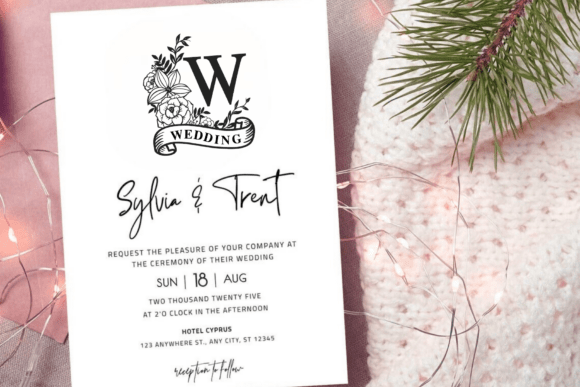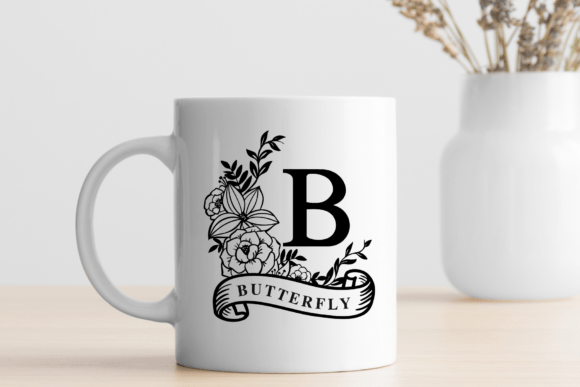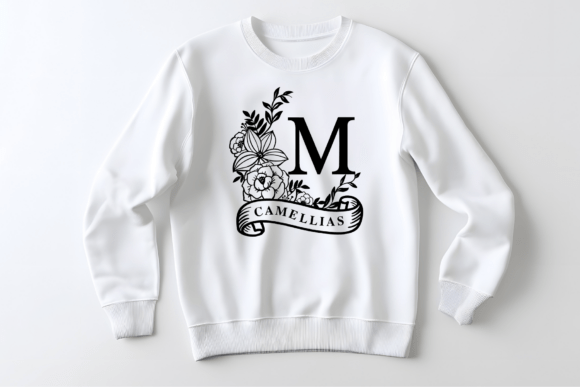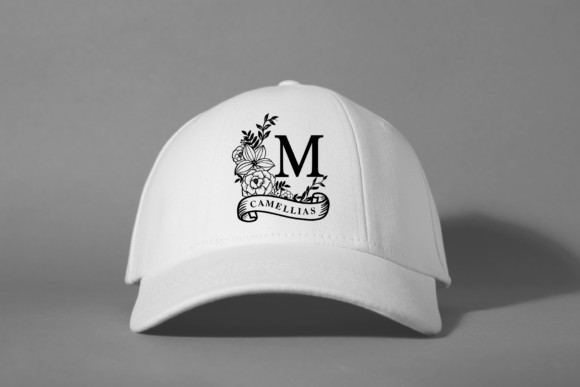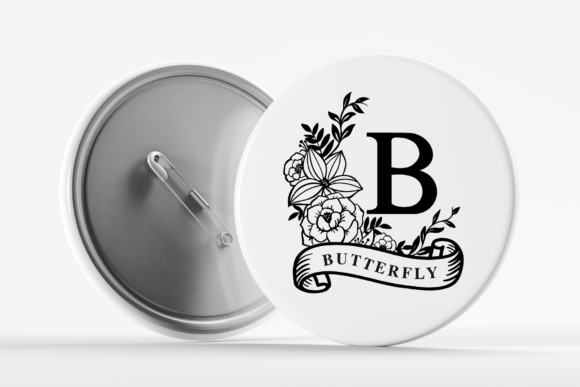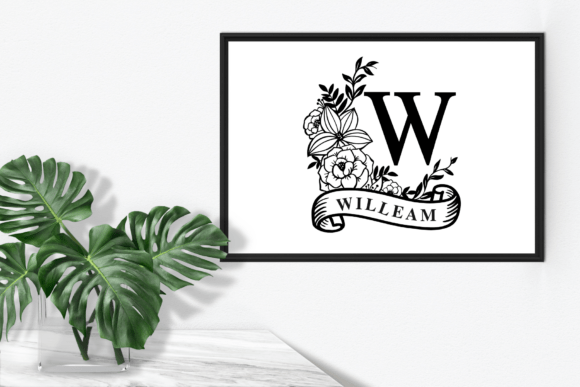
Unleashing the Beauty of Camellias Monogram Font
Have you ever stared at a blank page, waiting for the perfect font to emerge and bring your design to life? For designers, this moment can be a make-or-break experience. The right font can elevate your work from ordinary to extraordinary, and that’s exactly what the Camellias Monogram Font does.
This beautifully ornate decorative font is more than just a pretty face – it’s a tool for creating elegant monograms, wedding invitations, branding, and logo design that exudes vintage charm. Each letter is adorned with floral and ribbon accents, making it feel like a blooming garden in your designs. For designers looking to add a touch of sophistication and whimsy to their work, Camellias Monogram Font is a valuable asset.
- Unique Characteristics: Camellias Monogram Font features intricate, hand-drawn designs with a mix of serif and script elements, giving it a unique and elegant look.
- Monogram Support: The font is specifically designed for creating monograms, with a range of pre-made monogram combinations and customizable options to create unique designs.
Camellias Monogram Font Review
Overall, I’m quite pleased with the Camellias Monogram Font. The elegance ✨ and sophistication it brings to any design are undeniable. The intricate details and ornate design elements are reminiscent of classic monogram fonts from a bygone era.
Here are some things that really stand out:
- The font’s versatility in combining different elements to create unique and personalized designs.
- The wide range of customization options available, allowing users to fine-tune the look and feel to suit their specific needs.
- The font’s high level of detail and intricate design, making it perfect for special occasions or formal events.
- The font’s complexity can make it challenging to work with, especially for users who are new to designing with monogram fonts.
- The file size is relatively large, which can impact performance in certain situations.
- The font may not be suitable for designs that require a more minimalist or modern aesthetic.
Overall, I think the Camellias Monogram Font is a great choice for designers who want to add a touch of elegance and sophistication to their work. While it may have some limitations, its unique design and customization options make it well worth the investment.
Use the Camellias Monogram Font to create elegant and sophisticated designs for weddings, anniversaries, and other special occasions.
The Camellias Monogram Font is ideal for:
Anniversary and birthday cards
Monogrammed towels and linens
Customized gift tags and labels